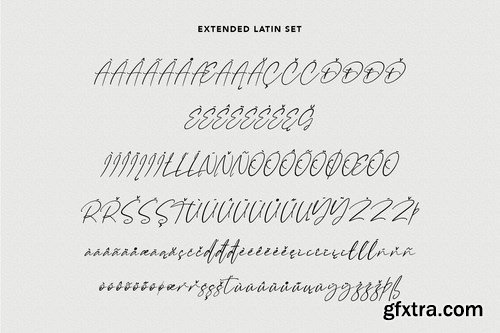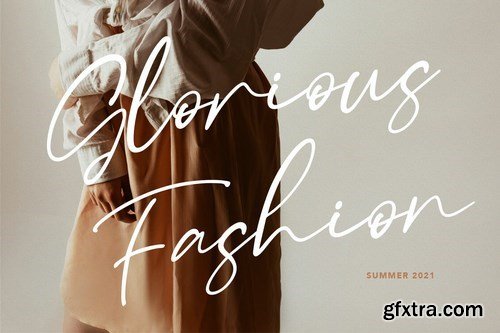
Raliscka is a modern casual cript font, With a high contrast stroke clean and fancy characters. It has Opentype features of ligatures, makes it a perfect choice for branding and digital designs. Use this font for logos, social media, websites, blogs, instagram, social media, business cards, branding, and more! Raliscka font support multilingual more than 100+ language. and good pair for your secondary text font with sans or serif. Make a stunning work with Raliscka script font.